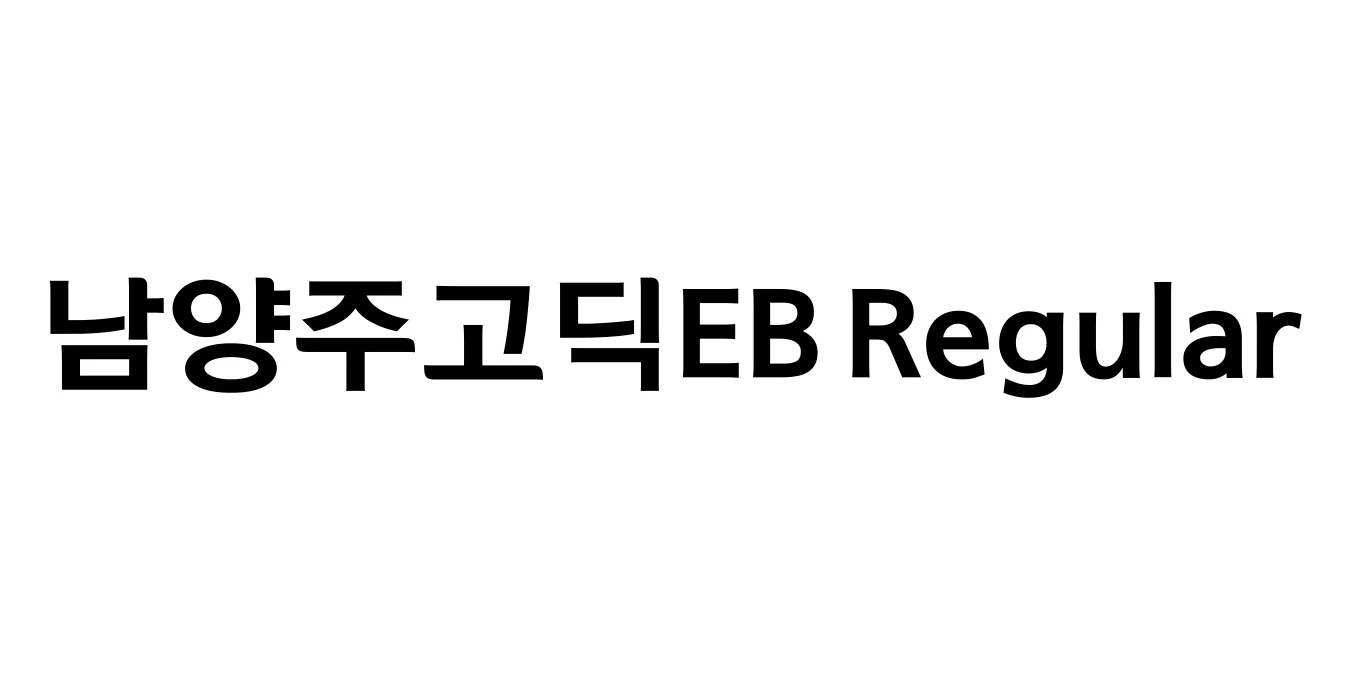
남양주고딕EB Regular
Designed by Namyangju City
| Category | Gothic (Sans-serif) |
| Designer | Namyangju City |
남양주고딕EB Regular (Namyangju Gothic Extra Bold) is a dedicated typeface commissioned by Namyangju City to foster a cohesive and modern visual identity for the region. As a public service font, it was designed with high readability and a clean, geometric structure in mind. The Extra Bold weight is specifically engineered to provide maximum impact, making it a versatile tool for public communications, administrative materials, and outdoor signage that requires immediate visual attention.
The font's design philosophy blends professional stability with contemporary aesthetics, featuring open counters and balanced stroke widths that maintain clarity even at large scales. Since its release, 남양주고딕EB Regular has been widely adopted beyond municipal use, becoming a favorite among graphic designers for its robust and trustworthy appearance. Its availability for commercial use has solidified its place as a reliable choice for diverse media, from digital web banners to high-resolution print advertisements.
남양주고딕EB Regular Best Uses
Perfect for bold titles and catching the viewer's eye in magazines or blogs.
Strong choice for corporate logos and visual identity projects requiring a solid feel.
Highly effective for event posters and large-scale outdoor advertisements.
Ideal for digital display banners and YouTube thumbnails that need clear legibility.